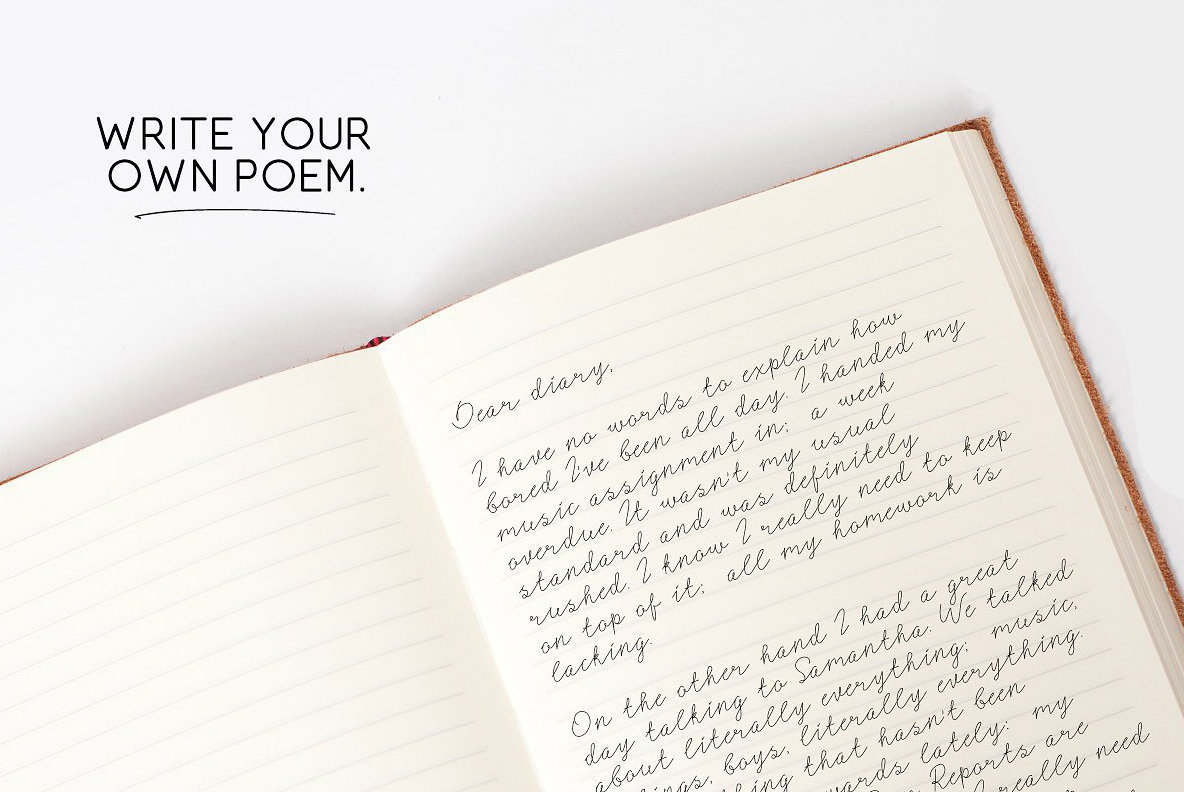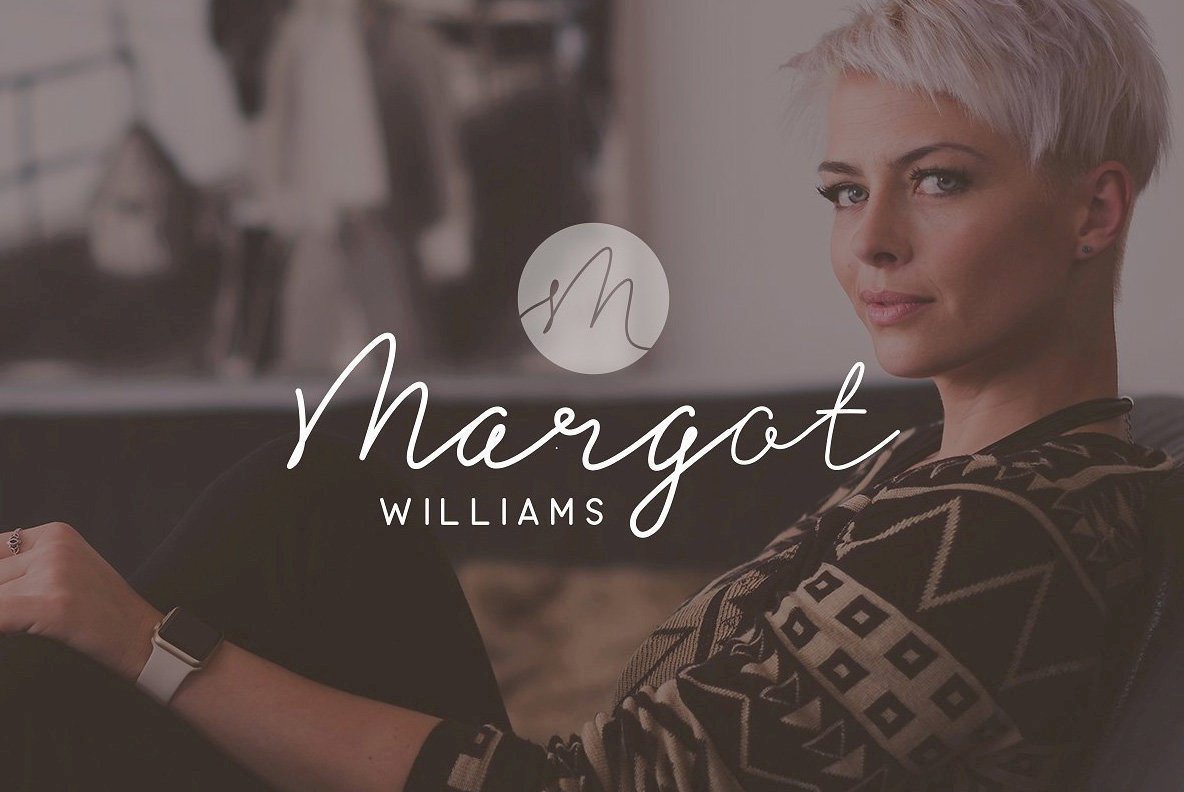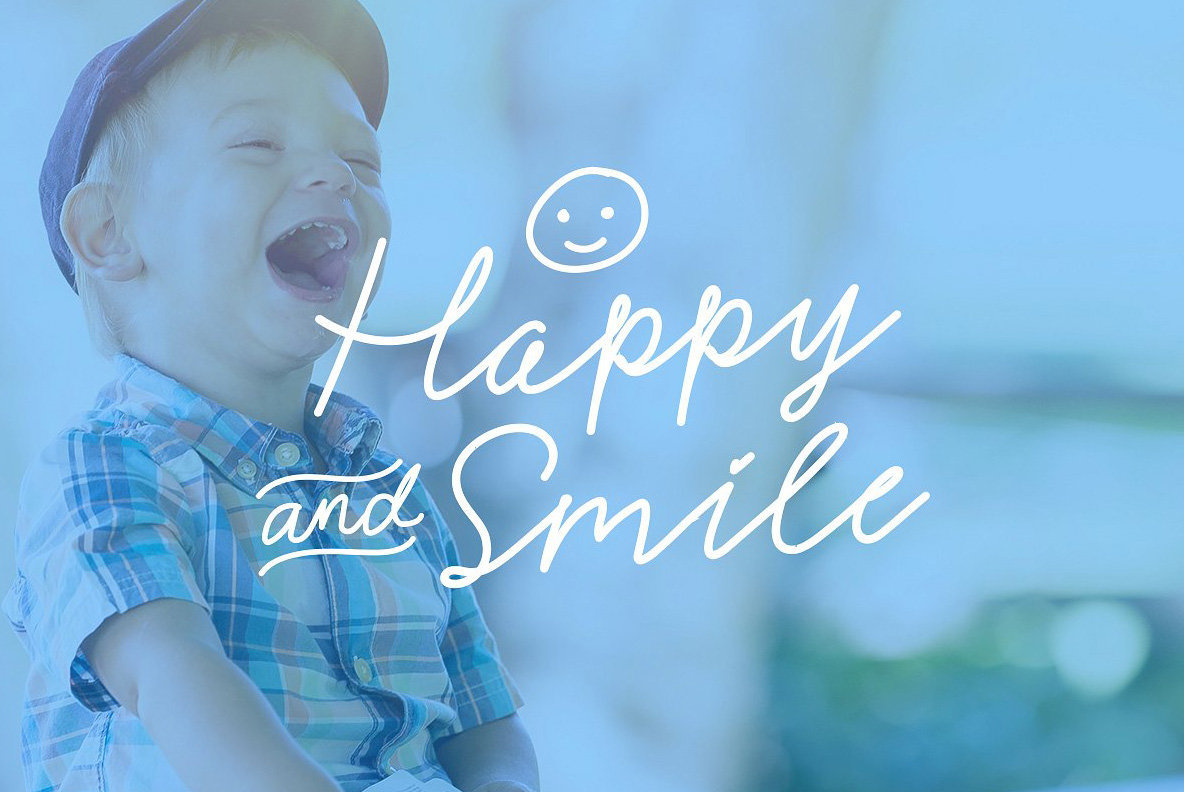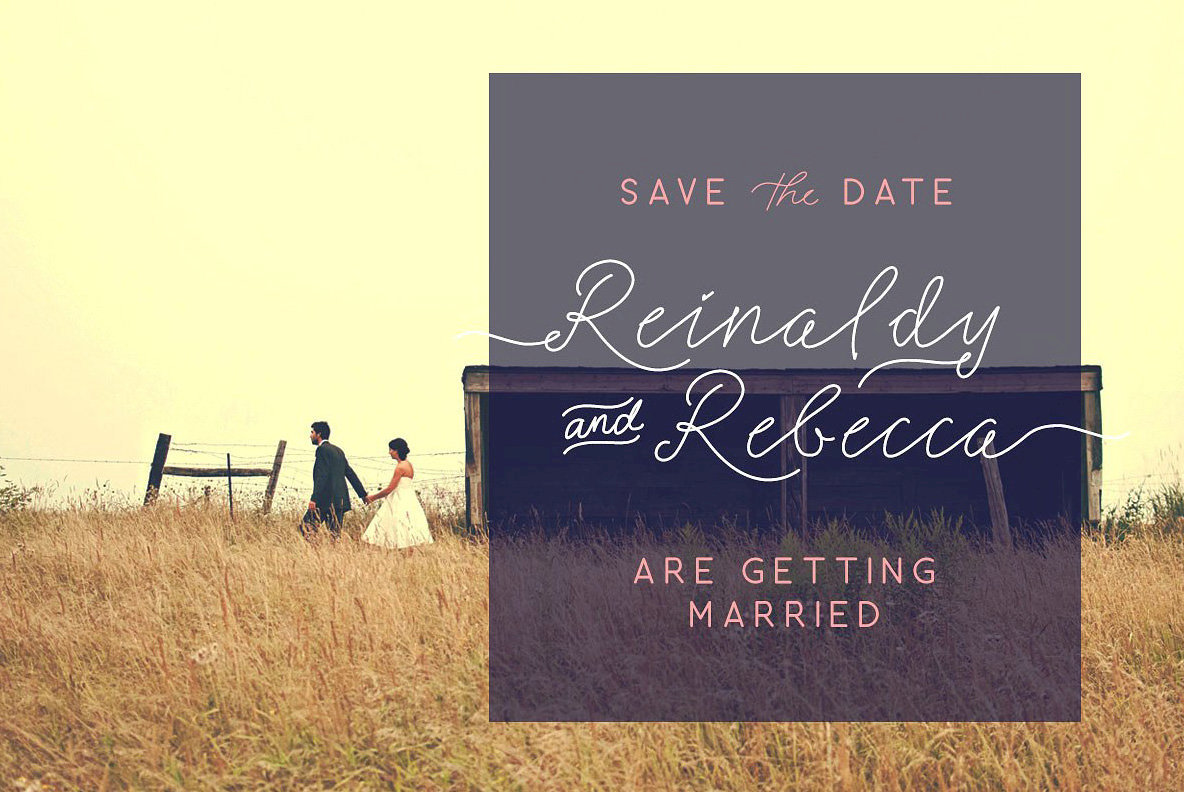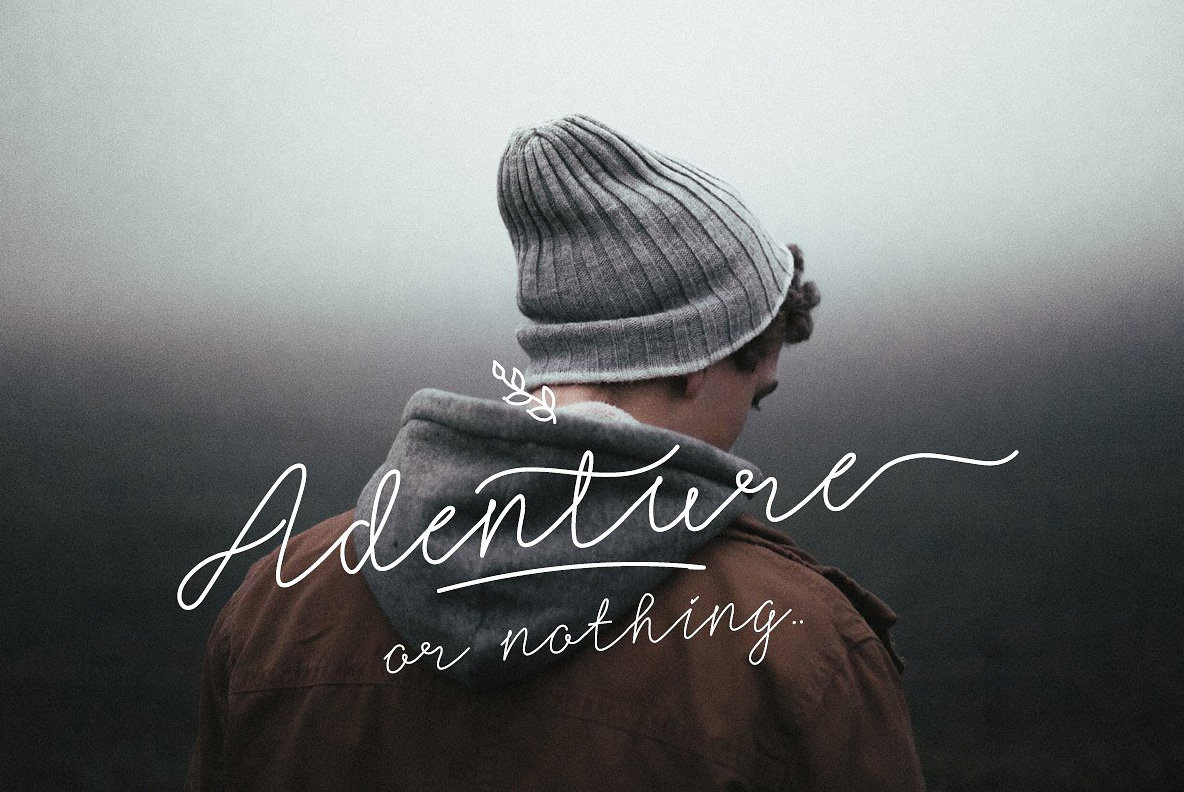
Signerella Font
Signerella Sans
Signerella Script
Signerella Swash
Signerella is an informal and elegant handwriting style font design, published by Letterhend Studio.